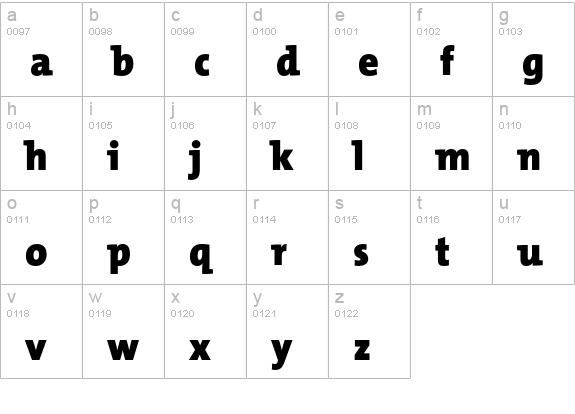
TheMix Black Plain is a maximum-weight, dramatic variant in the TheMix typeface family \xE2\x80\x94 well suited to maximum-impact headlines, posters, and packaging.
TheMix Black Plain font is a sleek and stylish typeface that exudes sophistication and elegance. With its bold and clean lines, this font is perfect for adding a touch of modernity to any design project. Its versatility allows it to be used in a variety of contexts, from logos and branding to headlines and titles. What sets TheMix Black Plain font apart is that it is also free! Yes, you read that right. This stunning font is freely available to download at FontsMarket.com. Now, you don't have to worry about breaking the bank to add a touch of class to your designs. Whether you're a professional designer or a hobbyist, TheMix Black Plain font is a valuable addition to your font collection. Its timeless appeal and bold presence make it a standout choice for any design project. So why wait? Go ahead and download TheMix Black Plain font for free at FontsMarket.com and elevate your designs to new heights of sophistication.